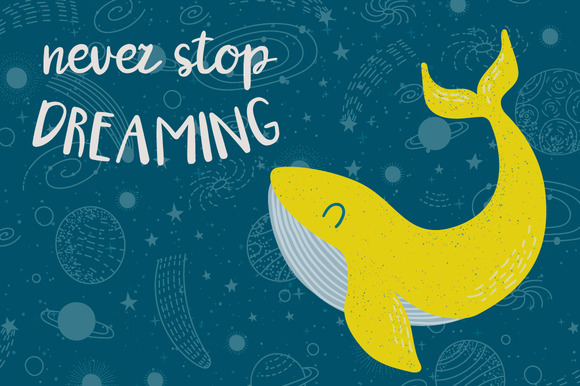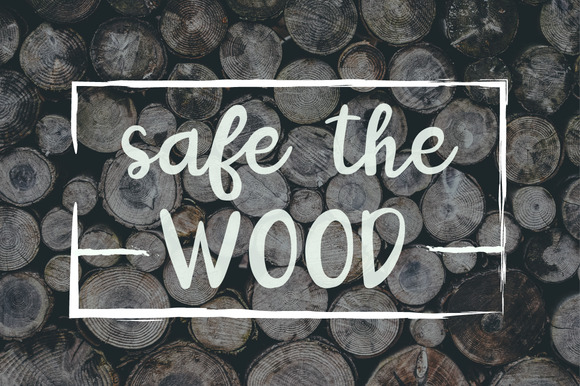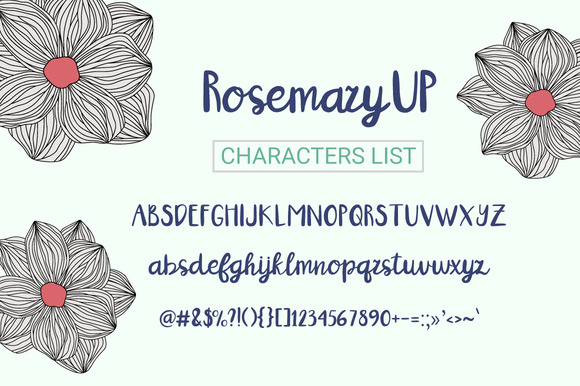
Introduction to RosemaryUP Font
Have you ever been working on a creative project, pouring your heart and soul into every detail, only to feel like something is missing? That’s where the perfect font can make all the difference. As a designer, you know how a well-chosen font can elevate your work and make it truly stand out.
Enter the RosemaryUP Font, a beautiful, handwritten and hand-drawn script font that adds a personal touch to any design. Whether you’re working on a logo, a poster, or a website, this font is sure to bring a high-quality feel to your project. And the best part? It’s a free download, so you can add it to your design arsenal without breaking the bank.
With its transparent background and elegant script, the RosemaryUP Font is the perfect design resource for any creative project. Whether you’re a seasoned pro or just starting out, this font is sure to become a valuable addition to your toolkit.
Key Features of RosemaryUP Font
- Unique, hand-drawn design with a transparent background, allowing for versatility in composition.
- Designed at a large size (2048×2048 pixels) for optimal resolution and legibility.
- Suitable for use in various creative projects, such as logos, graphics, and typography-based designs.
Honest Review: RosemaryUP Font
I recently stumbled upon the RosemaryUP Font while searching for free design resources for my creative project. I must say, I was pleasantly surprised by the quality of this font. It’s a great addition to any design arsenal, and the best part is that it’s available for free download.
Here are some aspects that work well for the RosemaryUP Font:
- ✨ High-quality design: The font is clean, elegant, and perfect for a variety of creative projects.
- ✨ Transparent background: This feature makes it easy to use the font in any design, without worrying about the background interfering.
- ✨ Versatile: The RosemaryUP Font can be used in a range of creative projects, from logos to typography-based designs.
- ⚠️ Limited font styles: While the font is beautiful, it’s only available in a few styles, which might limit its use in certain designs.
- ⚠️ Not suitable for large-scale use: The font might not be the best choice for large-scale projects, as it can be quite delicate.
Overall, I think the RosemaryUP Font is a great resource for designers, especially those working on creative projects. While it has some limitations, it’s a high-quality font that’s worth considering for your next design project.
RosemaryUP Font
The RosemaryUP Font is a high-quality, free download design resource ideal for creative projects. With its unique and elegant style, it’s perfect for adding a touch of sophistication to your designs.
To get the most out of the RosemaryUP Font, experiment with different font sizes, colors, and styles to create a unique and eye-catching design. You can also combine it with other design elements to create a cohesive look.
The RosemaryUP Font is perfect for a variety of creative projects, including:
- Wedding invitations
- Brochures
- Posters